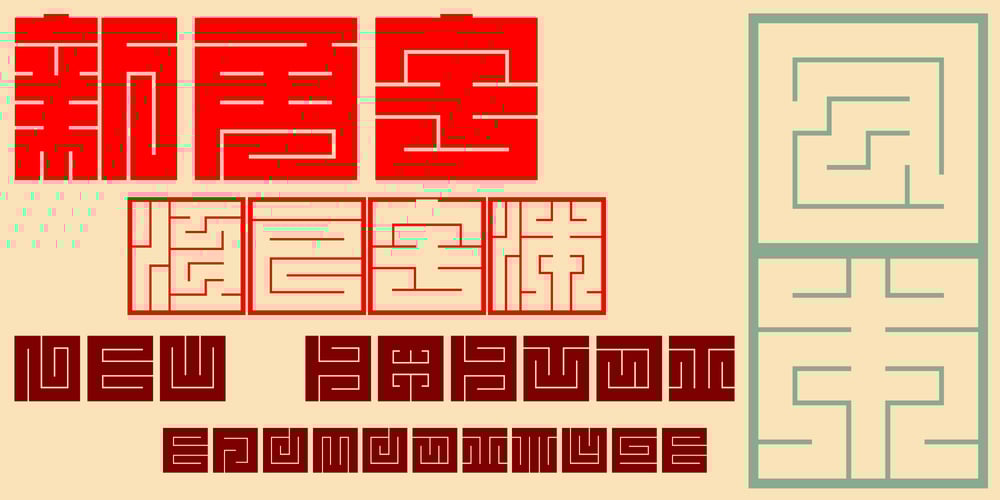
New Kakuji Font Family was designed by Aiden Catbagan and published by Edomoji Type. New Kakuji contains 2 styles and family package options. New Kakuji is designed from the Kakuji style of characters originating during the Edo period of Japan. New Kakuji has expanded the historical character set to include the surnames from the ancient Chinese text: Hundred Family Surnames, as well as the most common surnames in Japan, in addition to many other historically and culturally significant words, going well beyond the scope of characters that were used in the Edo period. No other font has expanded the character set of the Kakuji Style to the same extent as New Kakuji. A Latin alphabet expansion inspired by the old Kakuji style has also been included for western audiences and designers.New Kakuji contains over 500 Chinese/Japanese characters along with over 200 additional Latin characters or symbols.The solid and blocky style of New Kakuji is ideal for seal designs or other branding designs and should be used at larger point sizes.